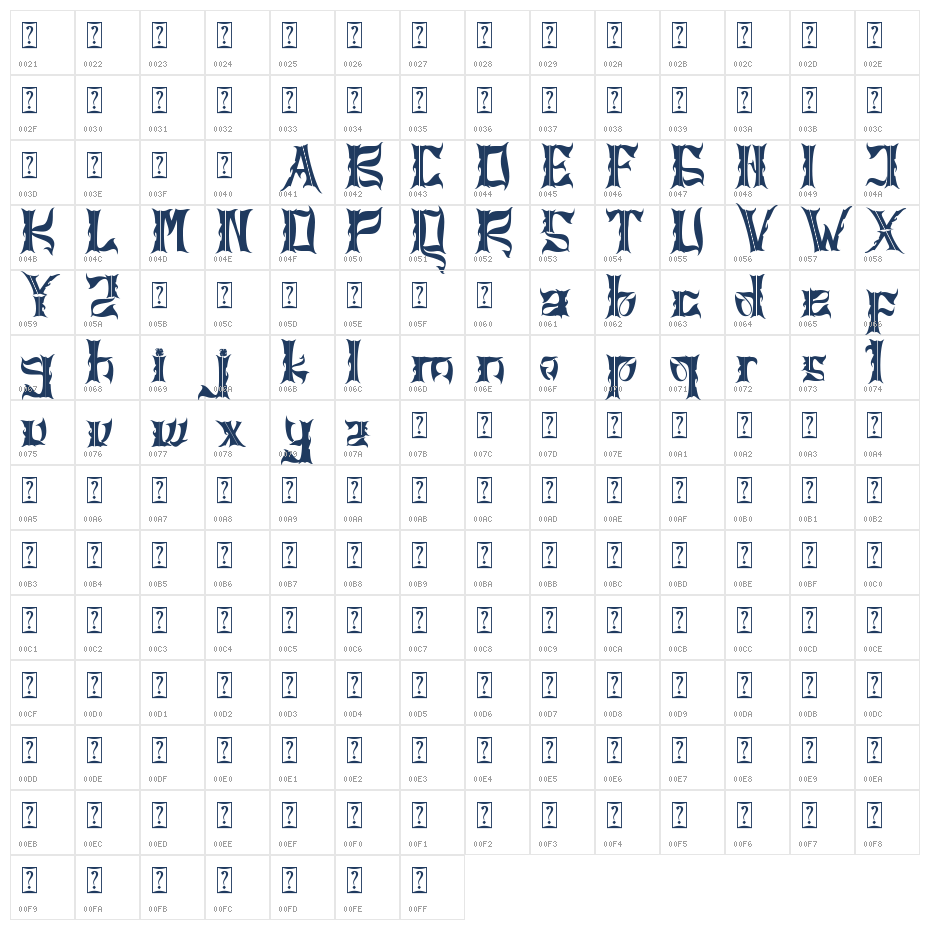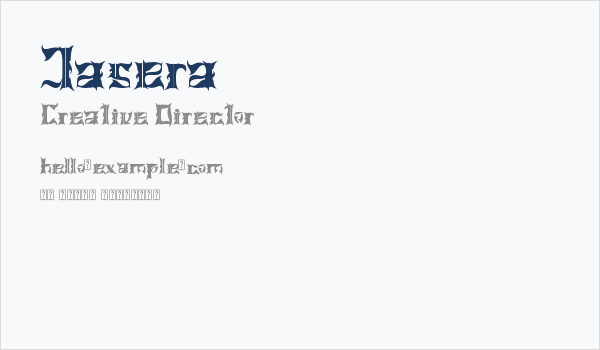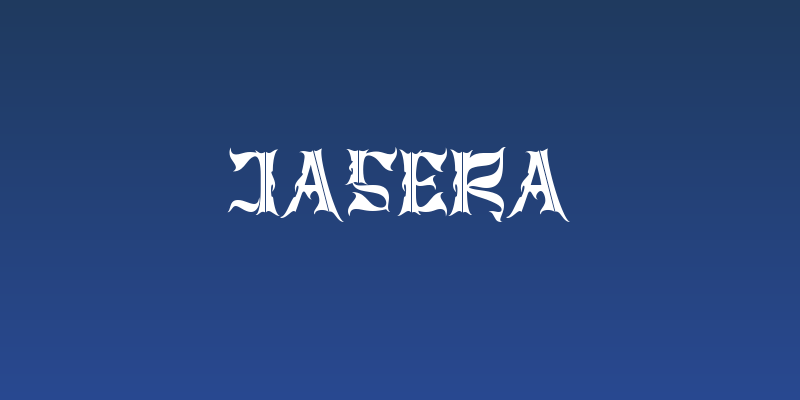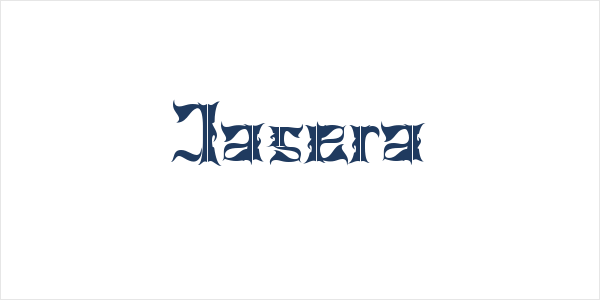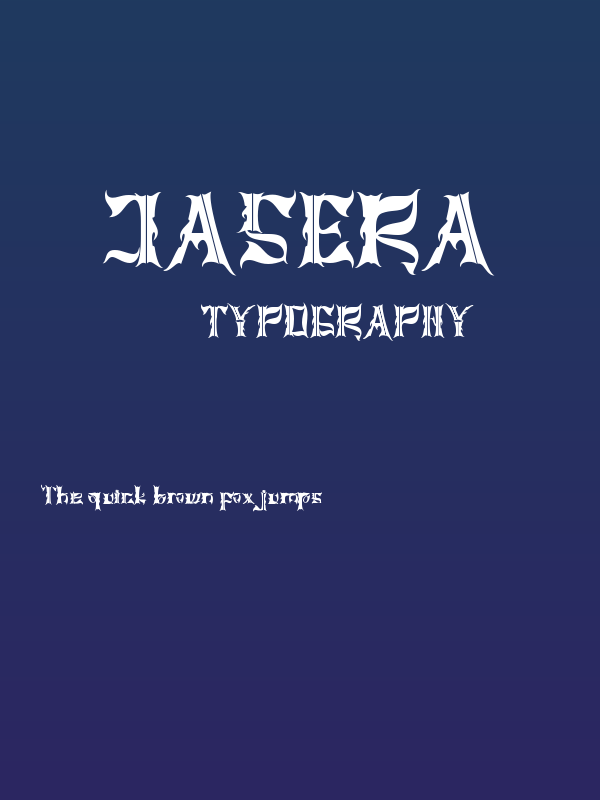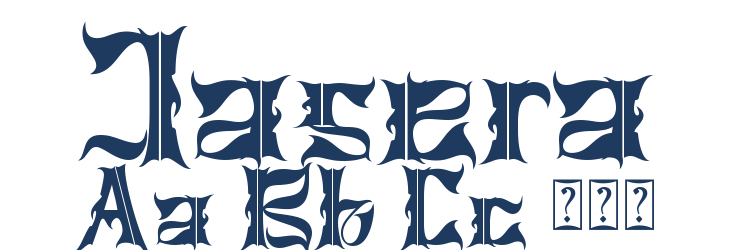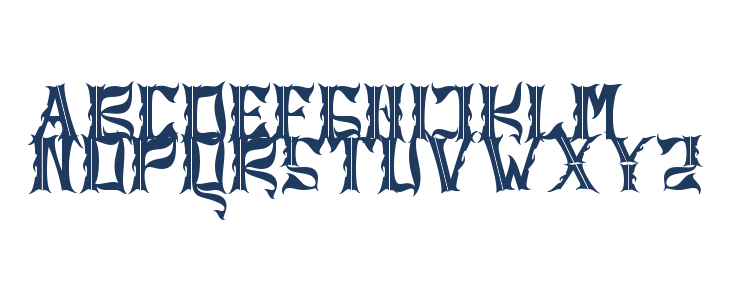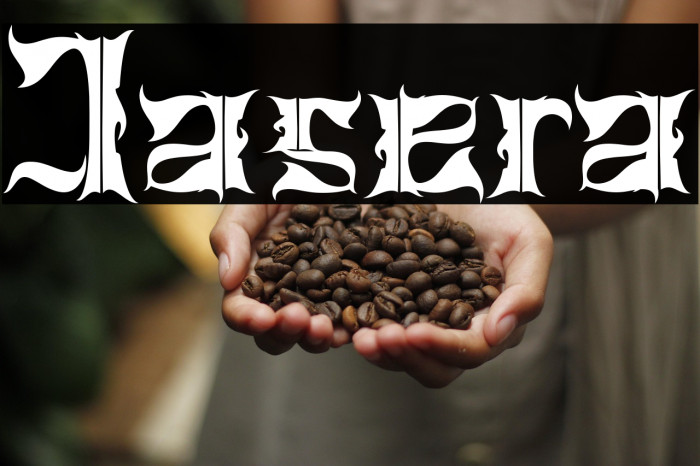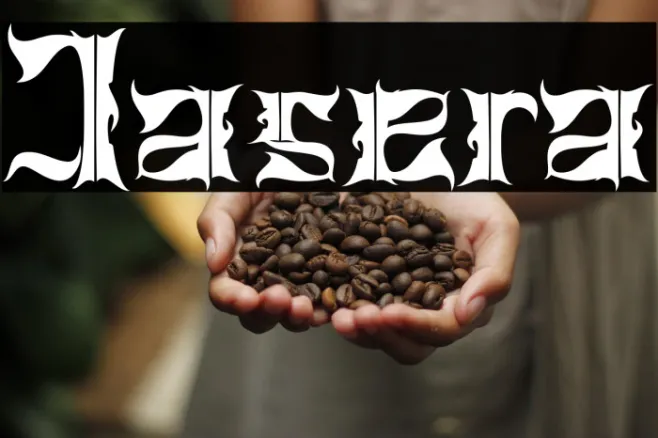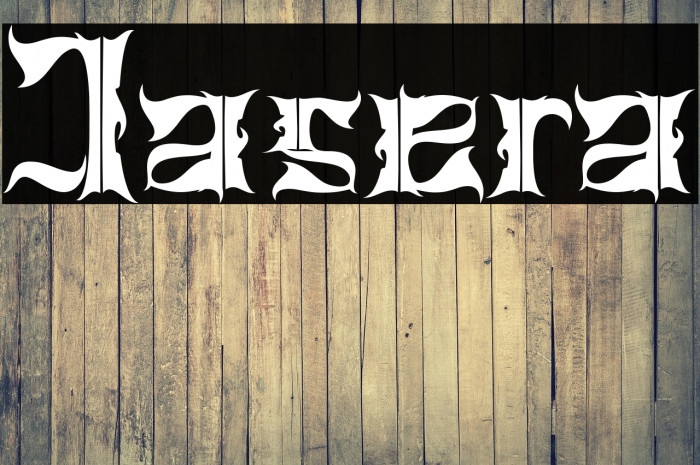
Jasera Font
Jasera Description
A decorative, gothic-style serif font with intricate, sharp, and ornate details, reminiscent of medieval or fantasy themes.
| Overall Style | Gothic, Medieval, Ornate |
| Use Case | Headlines, Titles, Logos |